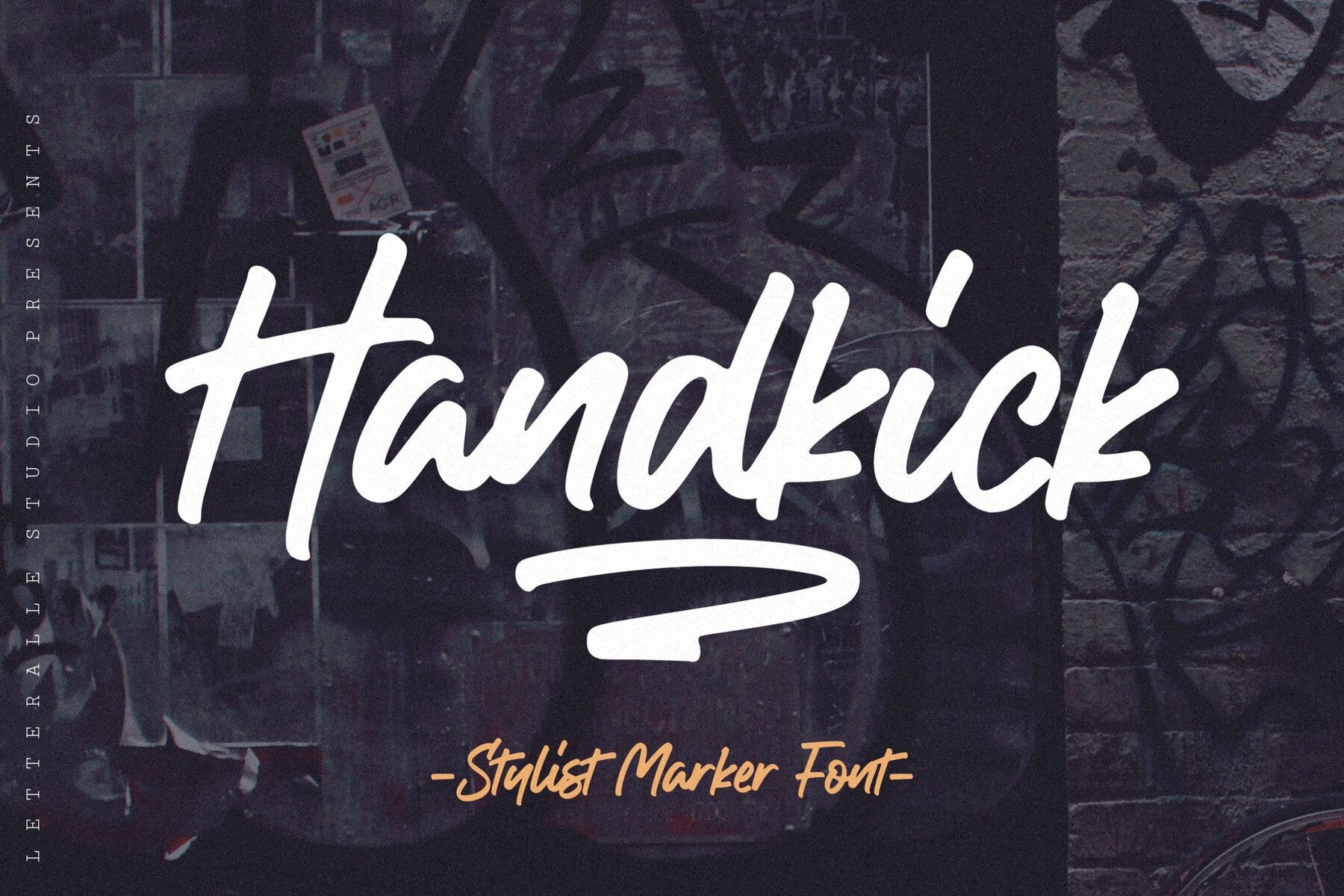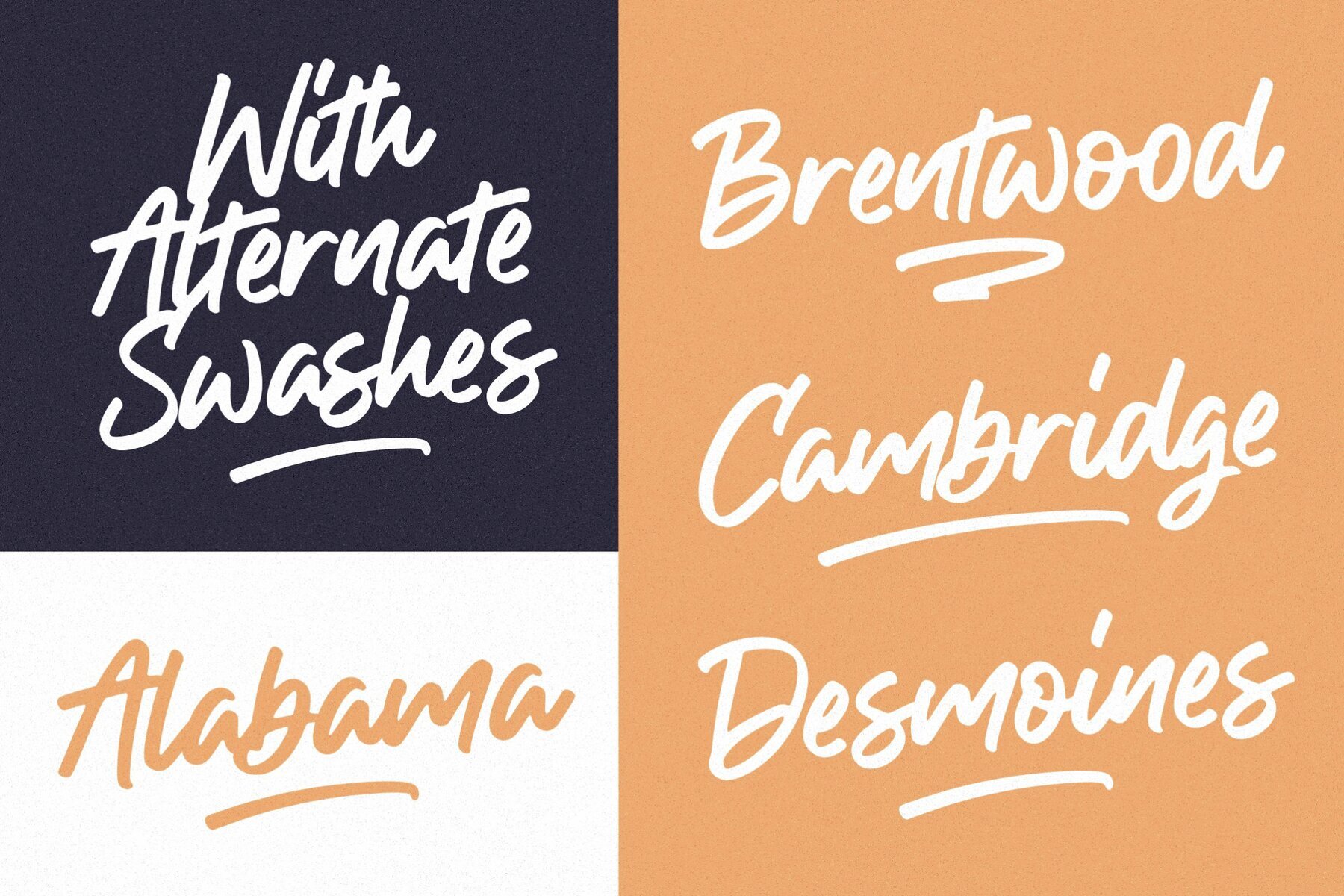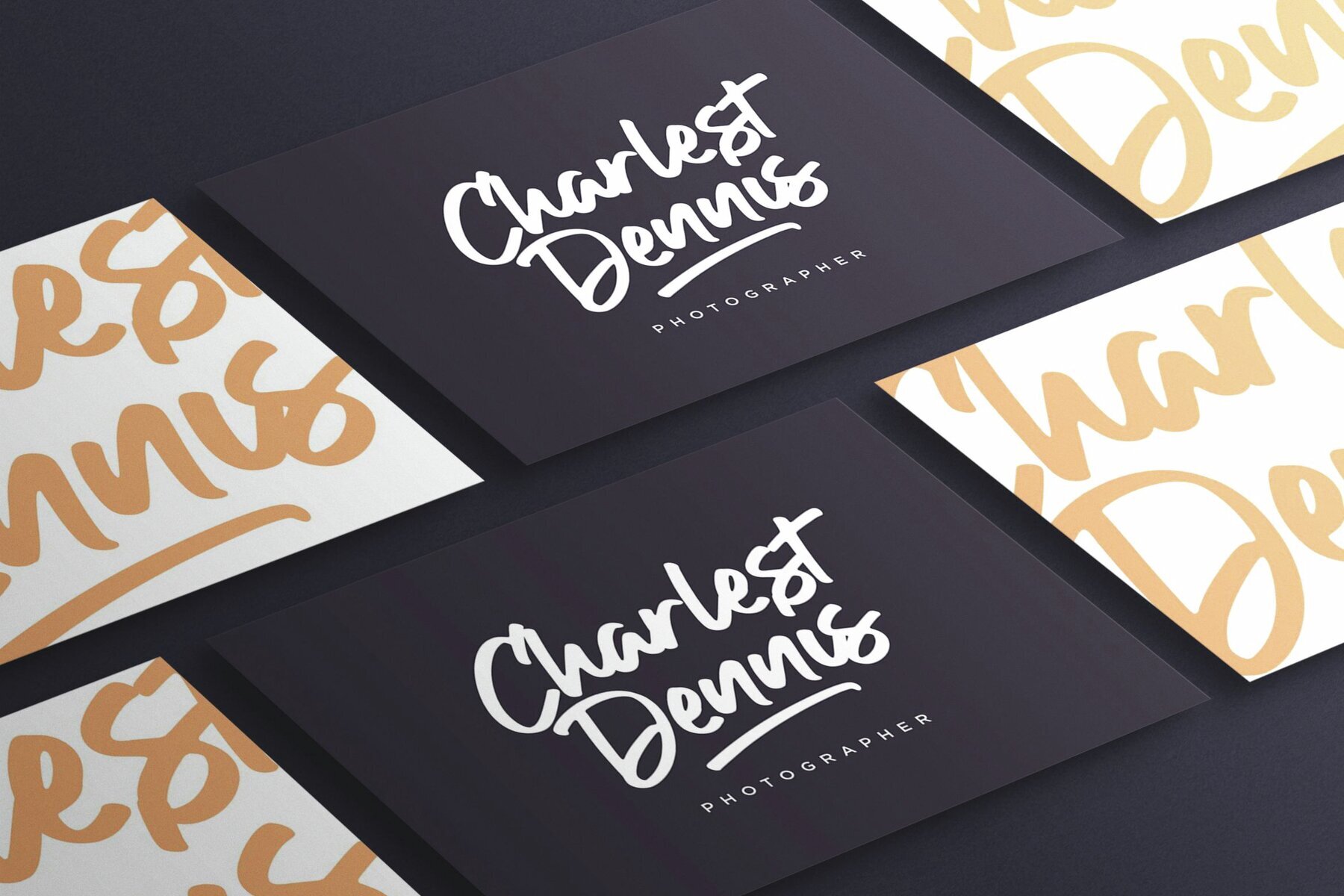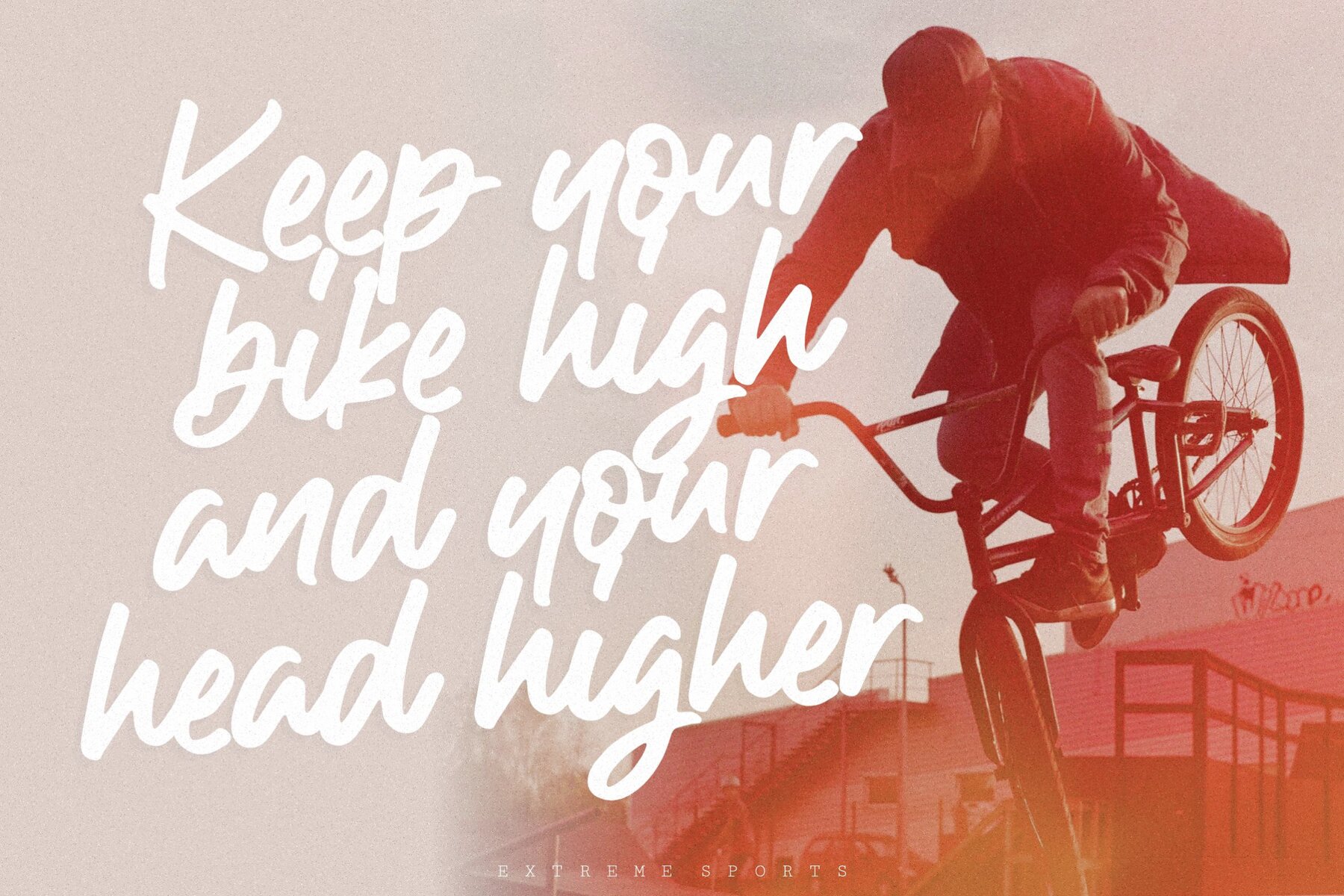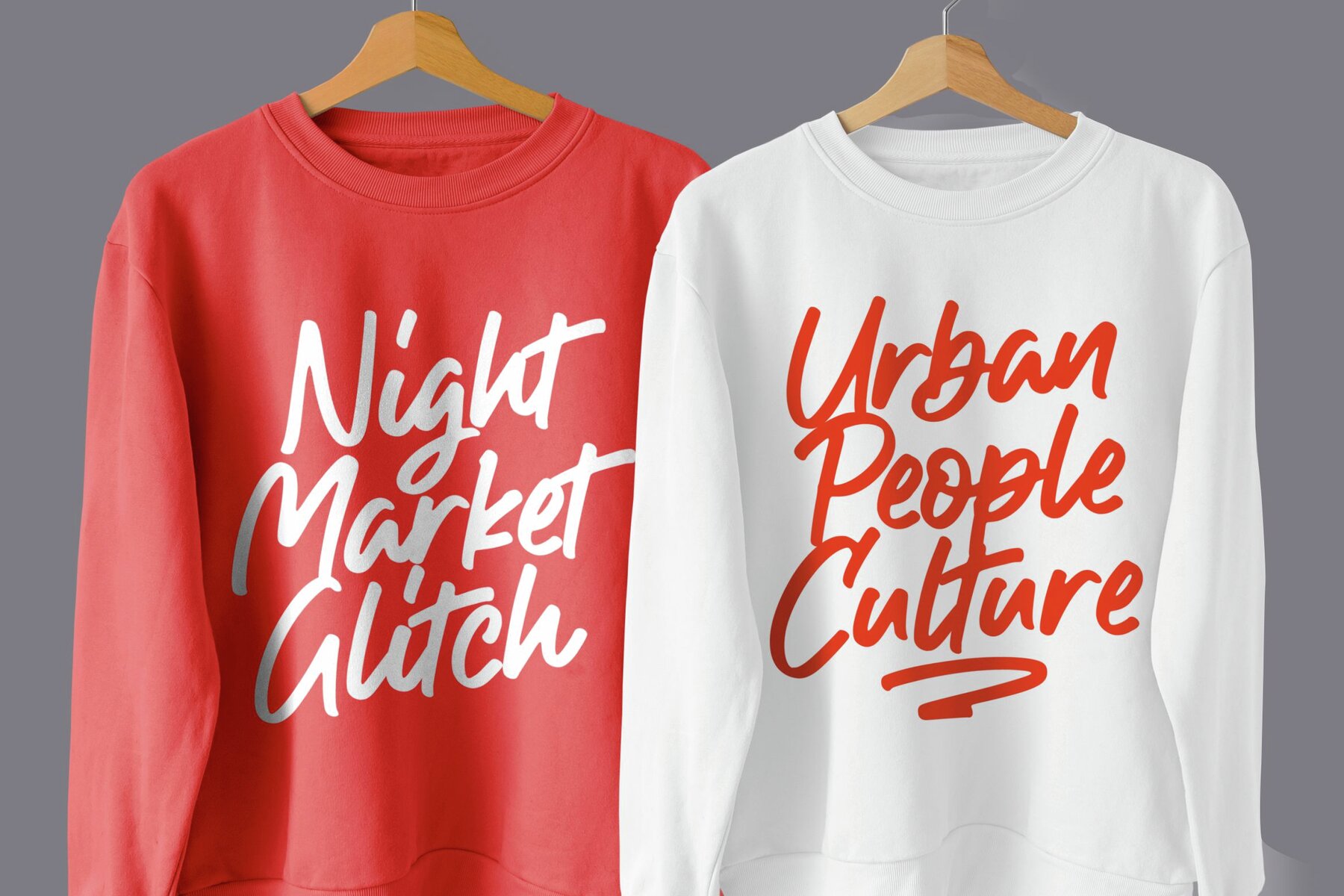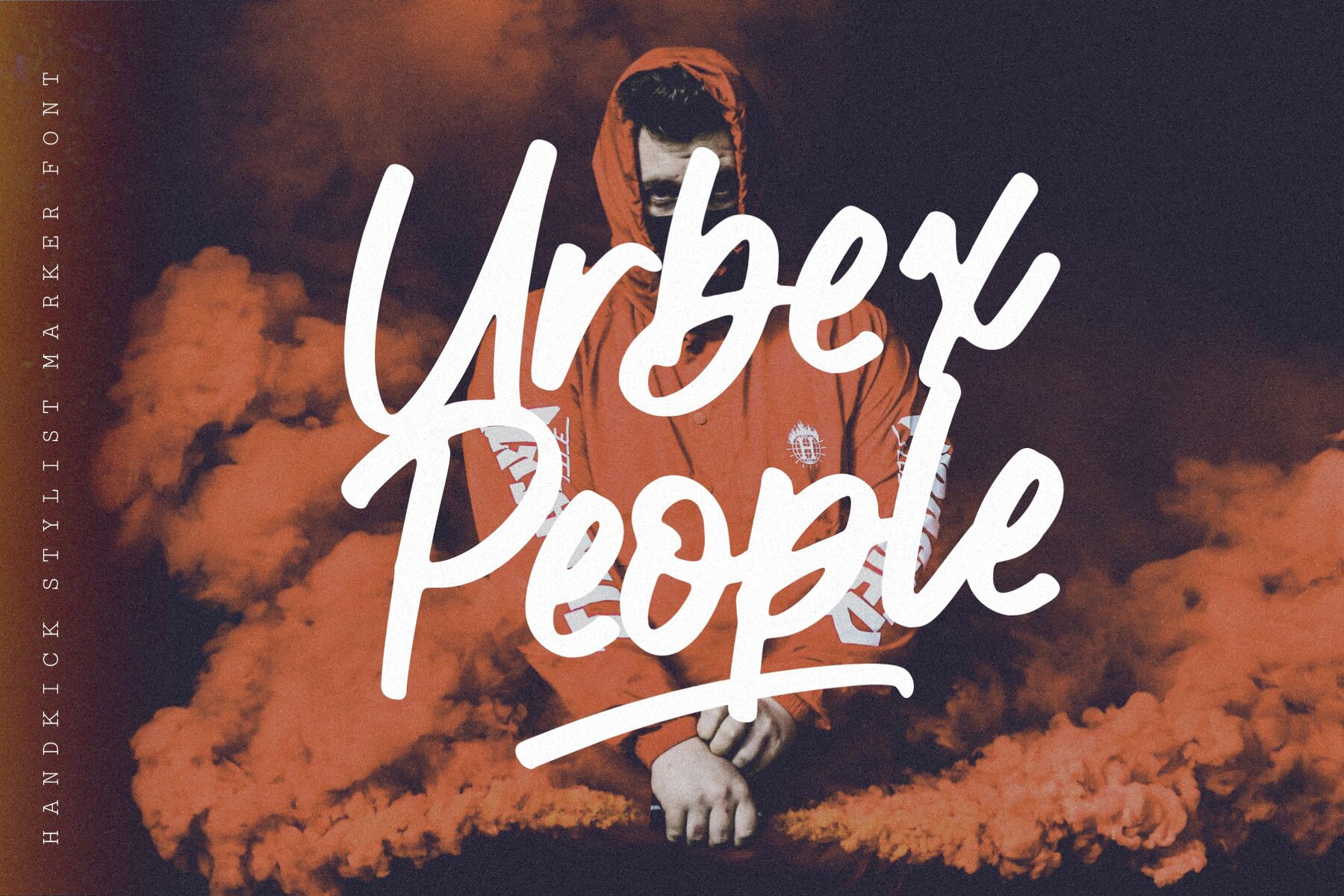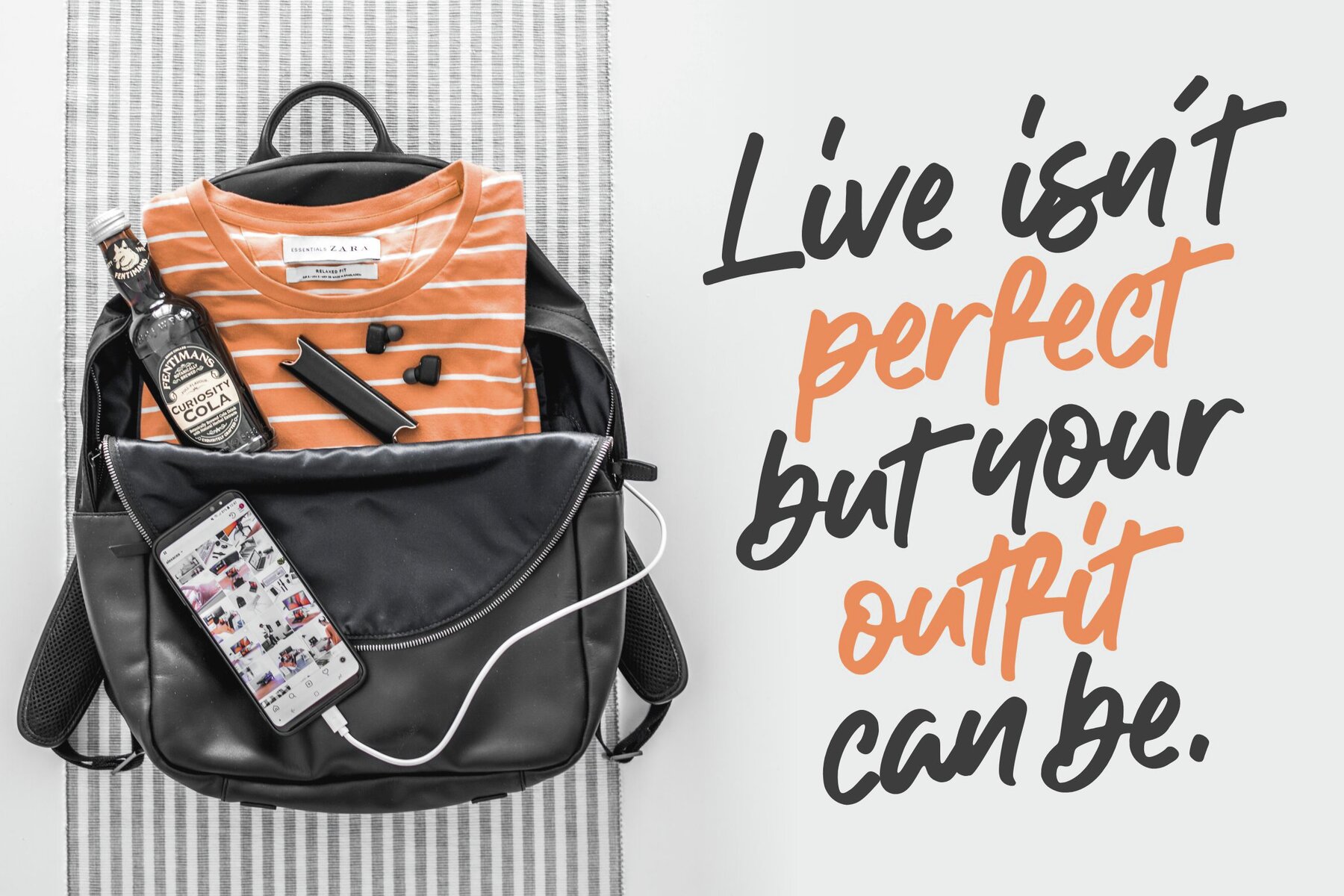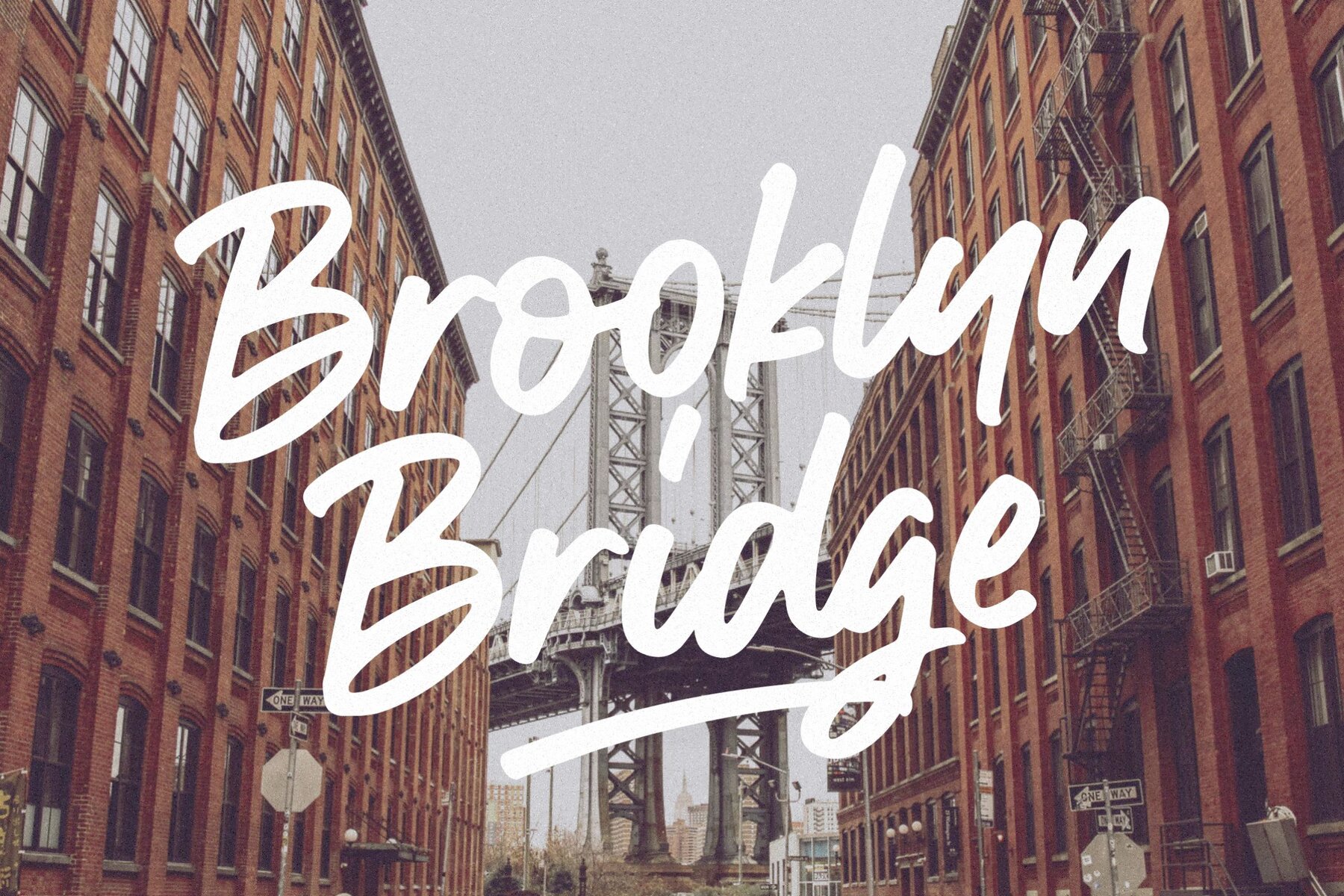
Handkick Font
Handkick Regular
Handkick is a smooth and silky handwritten font designed to bring a touch of elegance to your projects. With built-in multilingual support, ligatures, and swash underlines, this font offers versatility and ease of use. Simply type "_1" to "_3" to access swash underlines, making customization straightforward and fun.
Ideal for a wide array of design needs, Handkick is perfect for merchandise, packaging, social media posts, advertisements, T-shirts, logos, and event materials. Its fluid aesthetics and delicate strokes make your visuals stand out, ensuring your designs are both eye-catching and professional. Embrace Handkick to add a polished and unique touch to your creative endeavors.